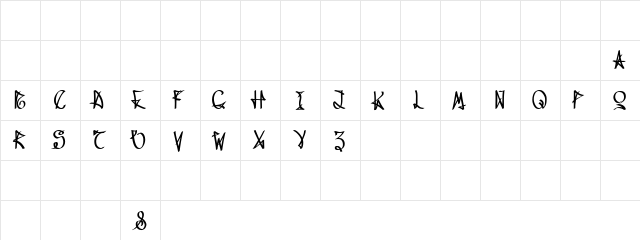
Wanax Demo Regular
Design Context for Wanax Demo Typeface
Wanax Demo is a composed and adaptable typeface that performs quietly and consistently across a wide range of design contexts.